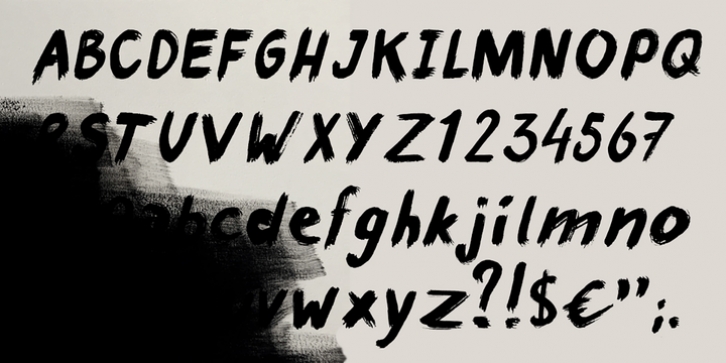
Nouch downloadDesigner: Fabio Milito,
Publisher: FMD
Nouch is a brush font made with ink and soya, inspired by love for street art and asian calligraphy. Recommended for extreme applications.